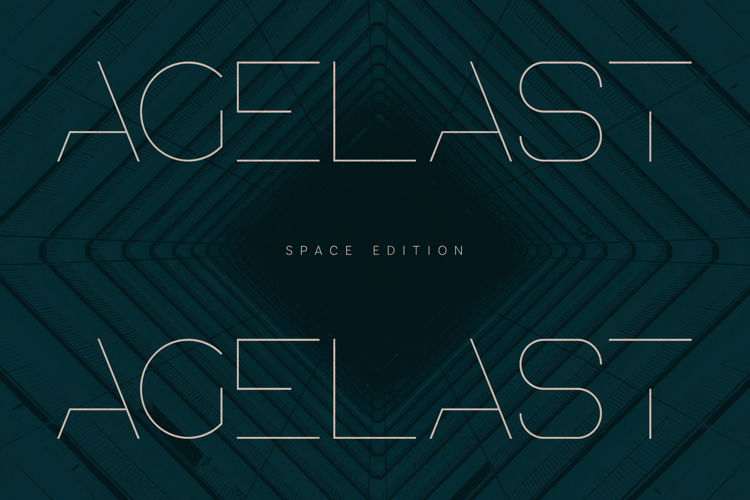
Agelast Modern Futuristic Display Font
Agelast is a modern futuristic display font designed with thin geometric strokes and minimalist letterforms. The typography combines clean structural lines with a sleek sci-fi aesthetic, creating a distinctive futuristic character.
The typeface features elegant line construction and open spacing, giving the letters a lightweight and technological appearance. Its minimalist structure allows the font to work beautifully in modern layouts while maintaining excellent readability and visual balance.
Agelast is ideal for technology branding, futuristic design projects, sci-fi visuals, space themed graphics, modern editorial layouts, posters, digital interfaces, creative typography compositions, and contemporary visual identities. The thin geometric strokes create typography that feels innovative, stylish, and highly distinctive.
The font includes uppercase letters, lowercase letters, numbers, punctuation, symbols, and multilingual characters, allowing designers to create typography for international projects and modern digital layouts.
With its clean futuristic structure and minimalist design, Agelast offers a distinctive display typeface for modern typography and innovative design projects.